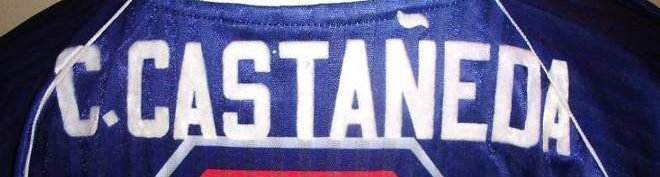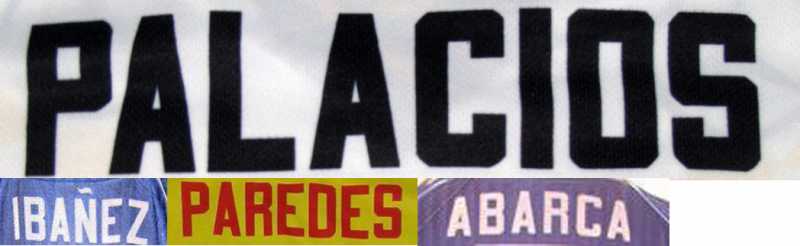
I need to know the name of this font,
any help?
Your image is a bit distorted and I can't find an exact match, only some similar.
You can try Prohibition (HoldFastFoundry) by emboldening it a bit (the 'R' is clearly different):
or you can even try "3x5" (by Keith Bates, K-Type).
If you emboldened it a bit the 'grid lines' will vanish:
If help, another picture
Sorry, I can't find something better...